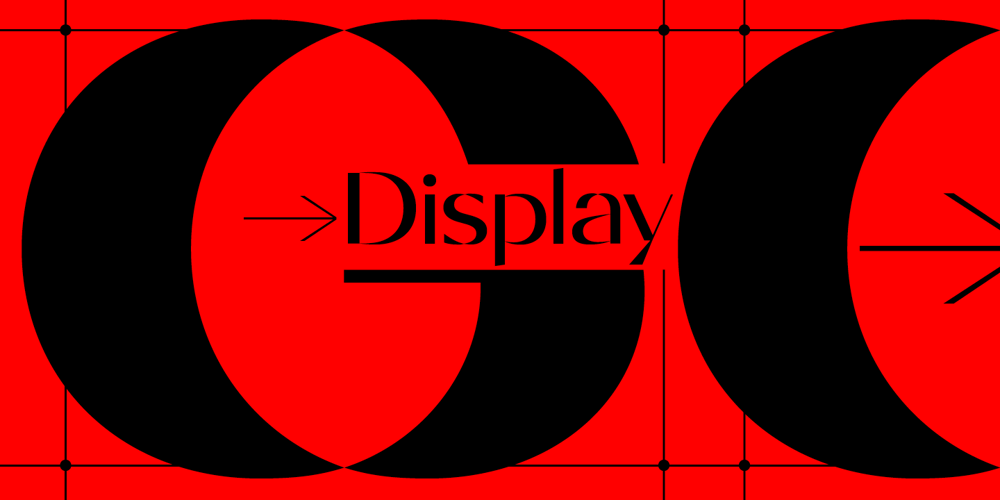
Diagram Display Font Family was designed by Jakub Samek and published by Makes Type. Diagram Display contains 6 styles and family package options. The distinctive design of the “Diagram Display” comes from the Venn diagram. It is a common statement and it is a spatial illusion. The delicately differentiated curves balance the technical, geometrically constructed shaping. The graceful character comes with All caps or Small caps typesetting in lighter weights when the font takes on a classicist character due to its proportions. It appears best in headlines and larger sizes, in all applications and themes where its elemental design resonates. Each of the six weights contains an extensive character set, including small caps, uppercase, lowercase and tabular numbers, mathematical symbols, standard and discretionary ligatures, or arrows and other special characters. The stylistic set SS01 contains alternations (a, g, t, u, y) that support its geometrically constructed appearance.